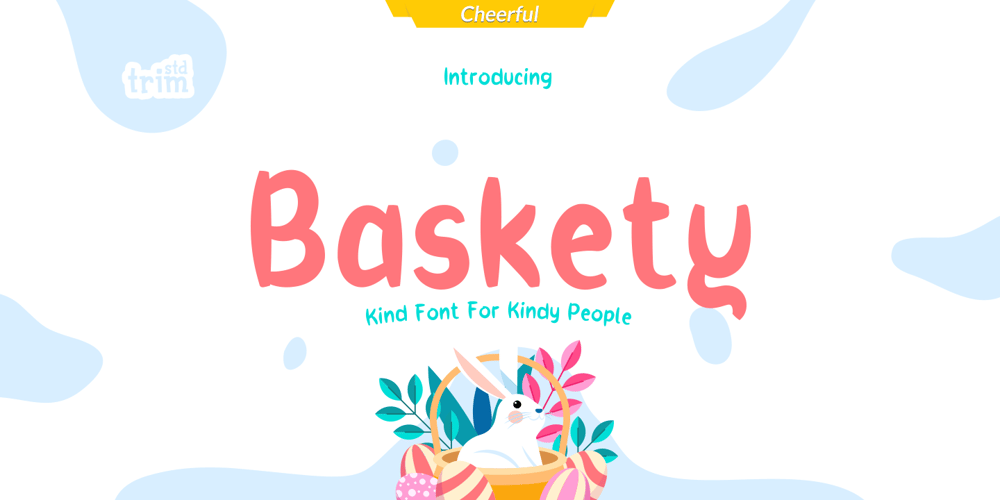
Baskety Font Family was designed by Deri Kurnia and published by Trim Studio. Baskety contains 1 styles and family package options. Baskety is a friendly and playful display font with a unique style. Its playful theme brings out a cheerful smile from kids. Get inspired by its adorable charm!Baskety is well suited for many kids products, playful events, birthdays and holidays.